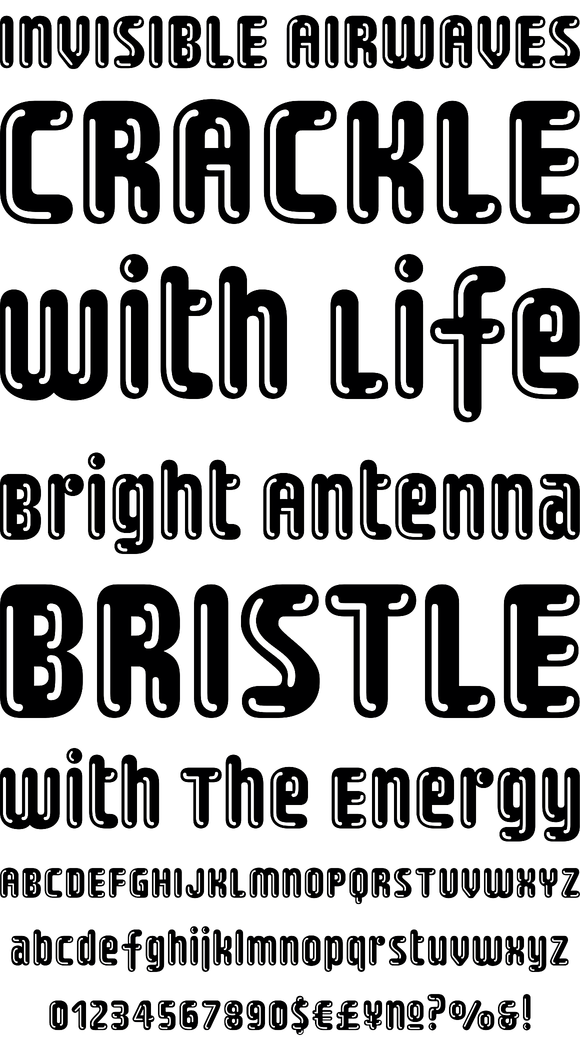
Fab is Canada Type's tribute to the Eighties. It's a five-font unicase family that brings tube design into the 21st century. The main font is an all-in-one treatment of the shiny roundness that the 1980s were. Fab White is a tightly packed thick outline font that conveys luscious contentedness like nothing else. The Fab Trio package is very useful for layered and colorful design, with the Black style serving as a backdrop, the Bold style as the front forms, and the Fill style for inlining.